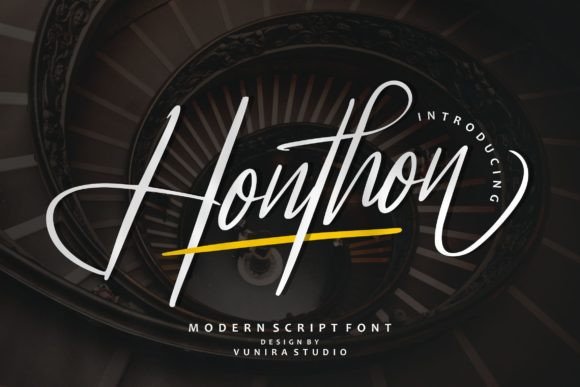
Embrace the allure of handwritten beauty with Honthon – a captivating script font that ignites imagination and elevates your designs. Its enchanting calligraphic strokes dance across digital screens, mirroring the grace and elegance of penmanship.
Immerse yourself in a world of endless possibilities as Honthon empowers you to craft captivating invitations, heartfelt greeting cards, and unforgettable branding materials. Its versatility shines through, lending an air of sophistication to business cards, inspiring quotes, eye-catching posters, and countless other creative endeavors.
With Honthon, the written word transforms into a captivating art form. Its PUA encoding grants you effortless access to a treasure trove of glyphs and swashes, empowering you to unleash your artistic vision and add a touch of exquisite charm to every project.
Indulge in the enchanting world of Honthon and let your creativity soar. Its delicate curves, graceful loops, and undeniable allure will captivate hearts and leave an unforgettable impression. Embrace the art of beautiful writing and make every word a masterpiece with Honthon.